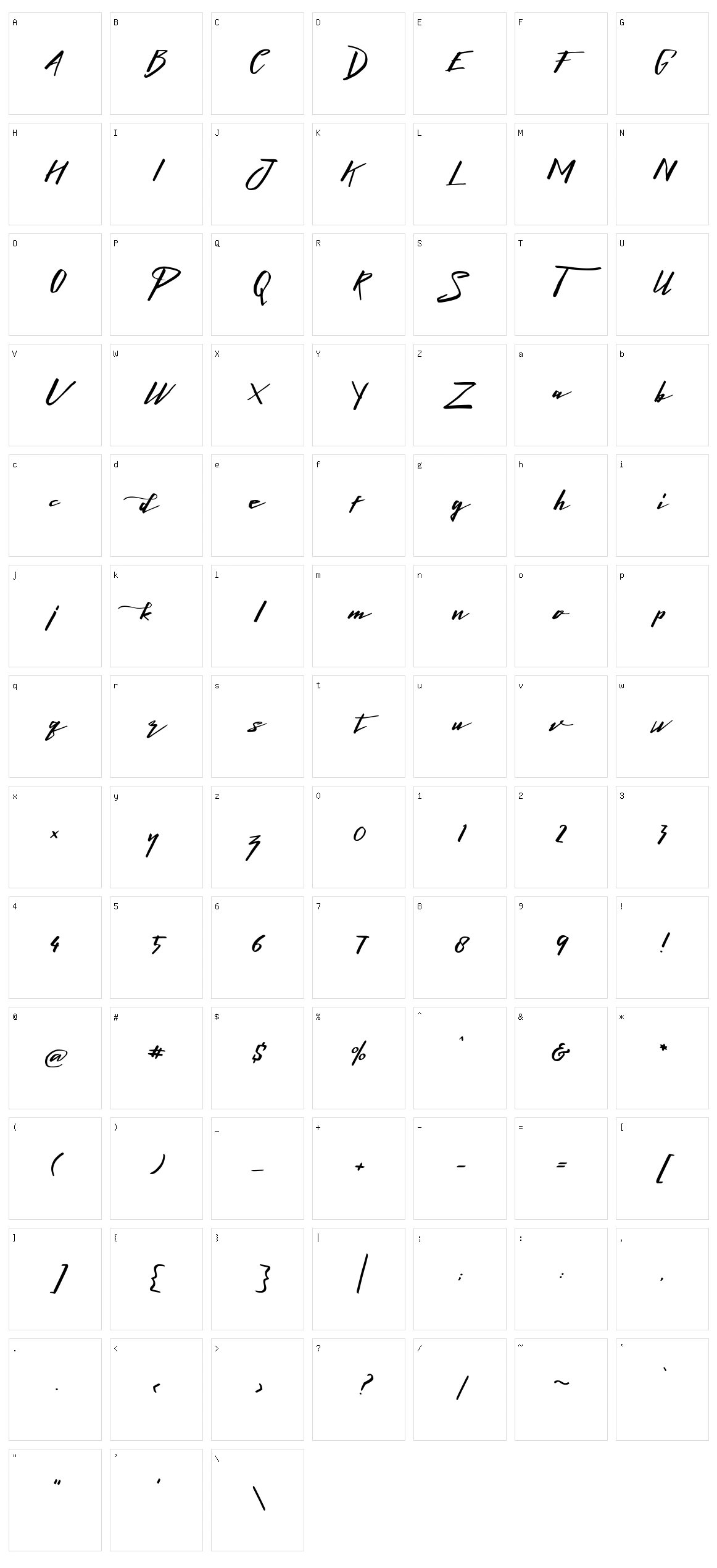
Lightening Script, is a calligraphy wavy, modern and clasik, perfect for your next design, such as logos, printed quotes, invitations, cards, product packaging, headers and anything else about your imagination.